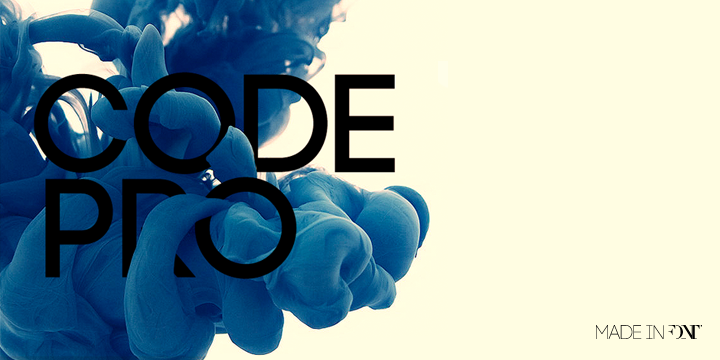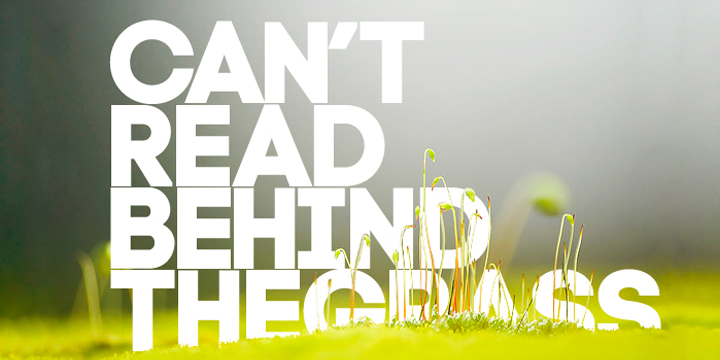
About the Code Pro Font
About Code Pro Font Family Code Pro is a font family inspired by the original Sans Serif fonts like Avant Garde or Futura, but with a modern twist, It is clean, elegant and straight-to-the-point, Code font is applicable for any type of graphic design—web, print, motion graphics, etc, —and perfect for t-shirts and other items like posters and logos
Designers: Svetoslav SimovPublisher: FontfabricFoundry: FontfabricDesign Owner: FontfabricMyFonts debut: May 13, 2011 Code Pro™ is a trademark of Fontfabric,